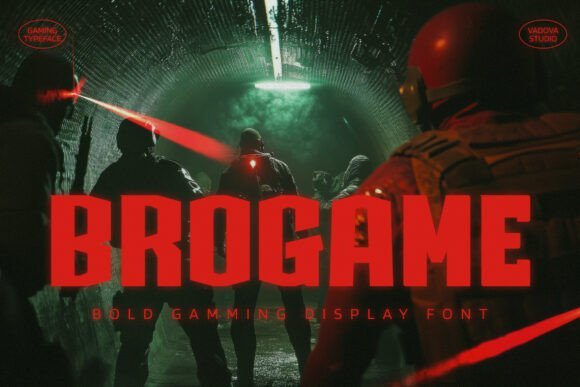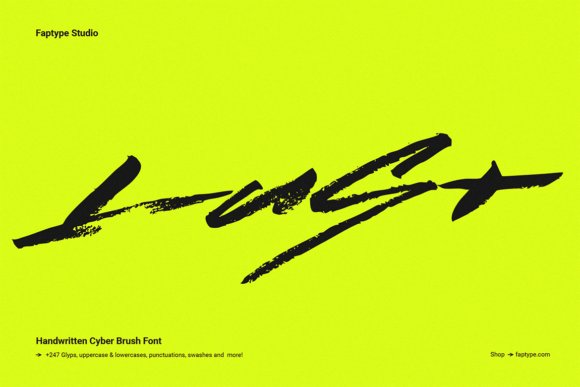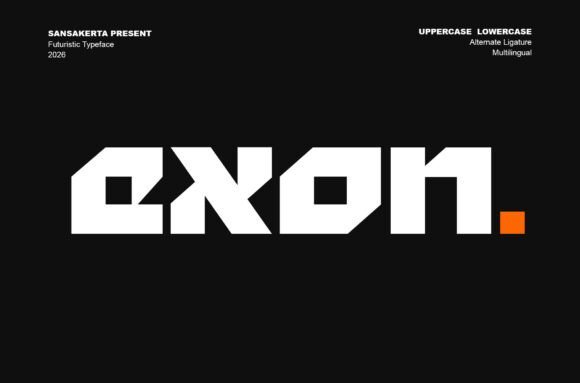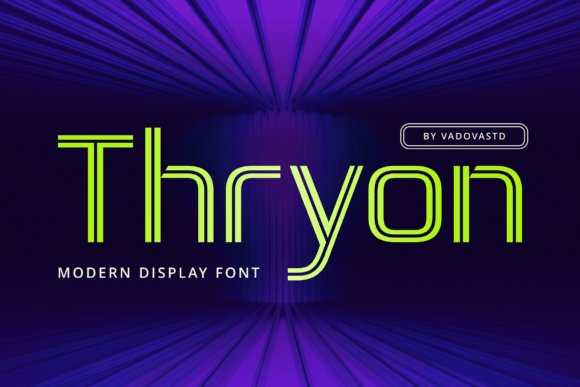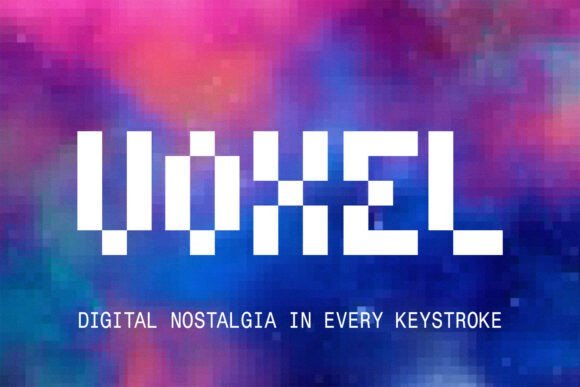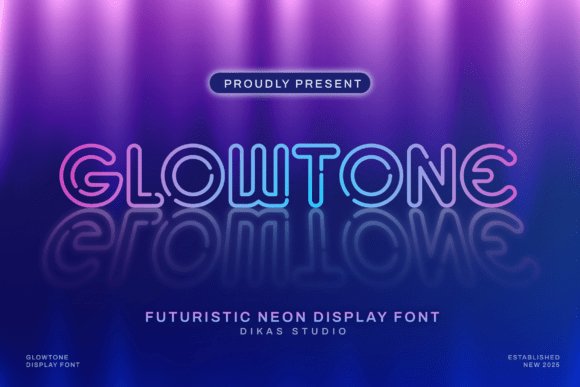
24 Futuristic Cyberpunk Fonts to Craft Neon Interfaces and Sci-Fi Posters in 2026
Looking for cyberpunk fonts that cut through visual noise? This collection of 24 typefaces focuses on neon-infused, high-contrast designs ideal for futuristic interfaces and gritty sci-fi art.
From modular techno sans to glitchy display faces, you’ll find fonts suited to game HUDs, album covers, motion graphics, and immersive UI concepts. I also cover pairing strategies, file-format recommendations, and quick licensing checks so you can deploy assets without delay.
Whether you’re building a cyber-noir website, a synthwave poster, or an in-game HUD, these selections and actionable tips will help you match mood to type and speed up production in 2026.
1. Quantum Cyberpunk Font
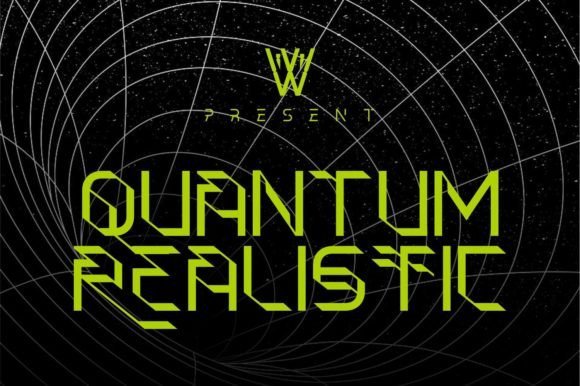
Quantum Cyberpunk merges space-age motifs with ornamental Blackletter callbacks to create a display face that feels both archaic and futuristic at once. Sharp terminals, high-contrast strokes and unexpected ligatures give the type a decorative flourish while a disciplined skeleton keeps it readable as a headline or logo, making it ideal where drama and elegance must coexist.
This family leans into the larger-than-life world of sci‑fi branding, galaxy-themed posters and neon-lit identity systems, complete with alternates that echo abstract quantum forms. As designers chasing authentic cyberpunk aesthetics will appreciate, Quantum Cyberpunk balances ornamental flair with modern utility, and supports bold typographic hierarchies in experiential projects using cyberpunk fonts and futuristic sans pairings.
My Recommendation: I’d reach for Quantum Cyberpunk when a project needs theatrical presence-think film posters, album covers, or a boutique tech brand that wants to feel both historic and hi‑tech. Its ornamental Blackletter references stand out at large sizes, and the alternate characters let you customize wordmarks without custom lettering. Pair it with a clean geometric sans for body copy to keep layouts balanced and legible.
2. Cyberpunk Font
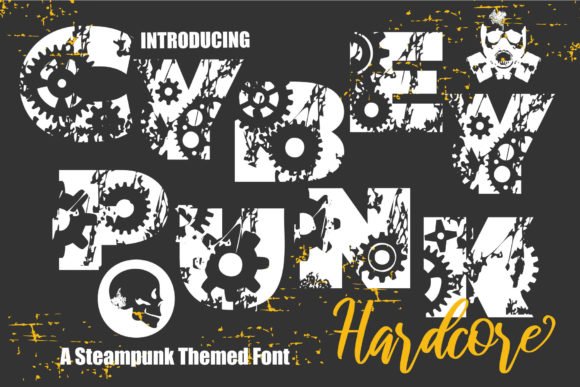
Cyberpunk is a bold decorative display face built for impact, with chunky shapes, angular cuts and lively rhythm that read instantly on posters and event banners. The aggressive letterforms and stylized terminals give a gritty, urban energy that suits street art, concert branding and high-contrast editorial spreads.
Despite its maximal personality, this font stays straightforward to use – strong kerning, clear uppercase silhouettes and a robust weight make it a go-to for headline work and merchandise. Use it where you need loud, immediate communication: gig flyers, social headers and apparel graphics that benefit from a raw, neon-and-concrete vibe.
My Recommendation: I recommend this Cyberpunk Font when you want an attention-grabbing headline that feels alive and tactile, especially for music, nightlife or street-culture projects. It reads well from a distance and prints cleanly on apparel, so it’s perfect for posters and tees. For balance, pair it with a neutral sans or condensed body text to avoid visual clutter.
3. Cyber Circuit Outline Font
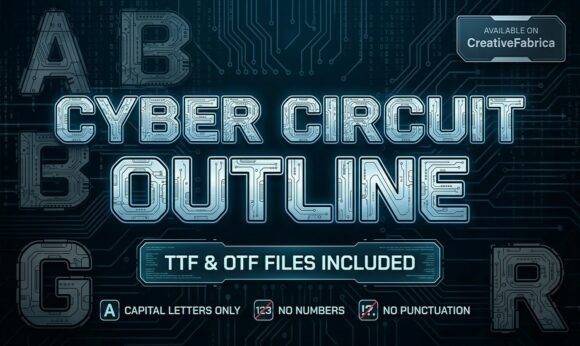
Cyber Circuit Outline is a technical display face whose open-outline construction mimics circuit traces and robotic schematics for a precise, mechanical look. Thin, parallel strokes and repeating geometry create an engineered rhythm that reads as modern tech signage and works beautifully layered over textures or colored glows.
This font excels in gaming IDs, e-sports badges and STEM-themed materials where a high-tech, schematic aesthetic is desired; it also adapts nicely to motion and VFX since the outlines animate cleanly. For best results use it large or combine the outline with a solid companion face to add weight and maintain legibility across media.
My Recommendation: I’d use Cyber Circuit Outline for projects that need a literal tech signal-think hardware product launches, robotics club identities, and futuristic game logos. Its detailed linework looks great when paired with neon glows or metallic gradients, and animates well for title sequences. Combine it with a dense solid display to anchor copy in layouts where readability is essential.
4. Blast Dragon Font
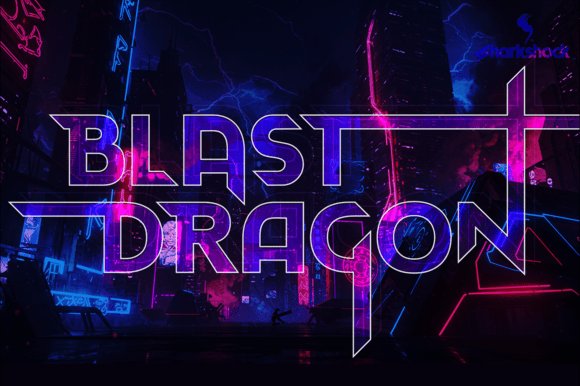
Blast Dragon is an all-caps display font built around condensed geometry and razor-sharp terminals; its 45-degree cuts and outward-reaching ascenders give each glyph a kinetic, blade-like silhouette that reads as speed and aggression. Among cyberpunk fonts, Blast Dragon stands out for balancing compact impact with legible form – the slanted terminals and extended strokes create a consistent visual rhythm that drives the eye across headlines and logotypes.
The family ships with three stylistic versions, full Basic and Extended Latin support, punctuation, kerning, alternates, and stylistic sets, making it production-ready for international projects. Use it where motion and attitude matter most: esports badges, action game titles, synthwave album art, anime posters, or hero web graphics that demand a forward-charging, high-tech voice.
These 24 cyberpunk fonts provide a practical starting point for projects that need neon, tech, or dystopian energy. Apply the pairing suggestions and licensing notes to choose a face that reinforces your concept and supports your delivery channels.
Test several options in mockups, keep web-safe fallbacks ready, and bookmark favorites for future projects. Revisit this roundup whenever you need bold, future-forward typography and rapid implementation in 2026.